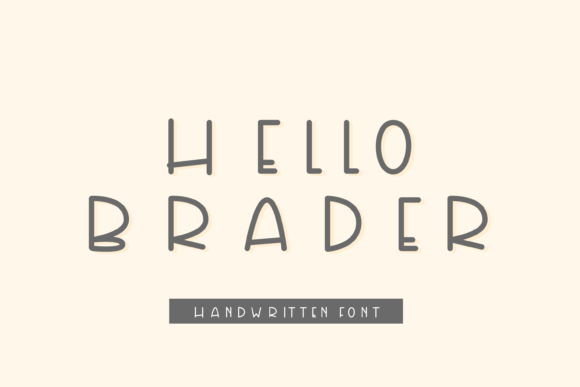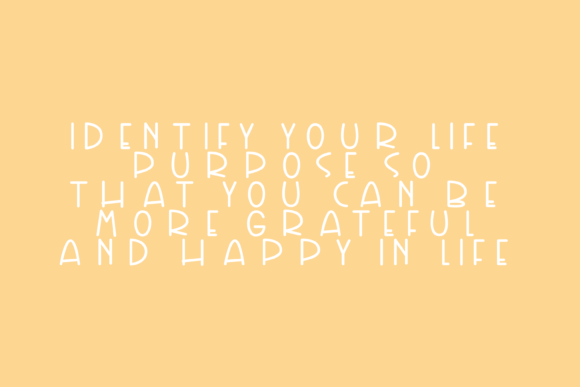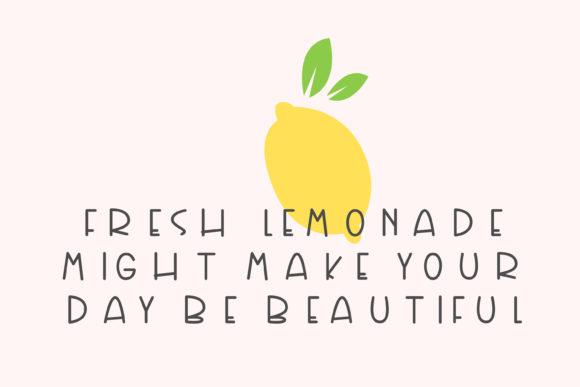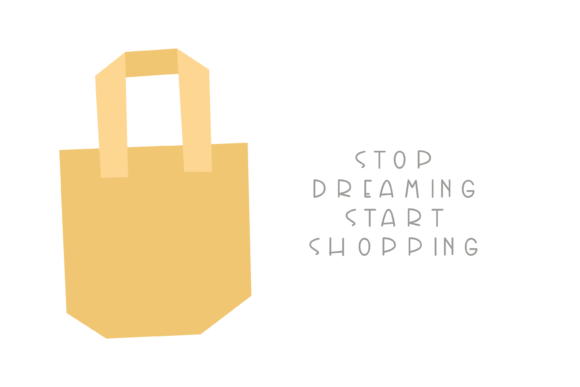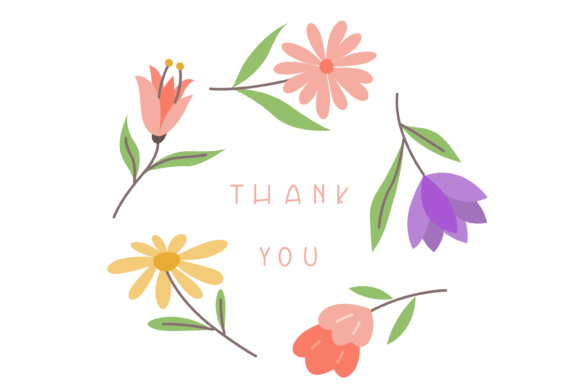
About Hello Brader Font
Hello Brader is a fun and minimalistic handwritten font. With its simple and cute characters, this typeface is a great asset to any fonts library!